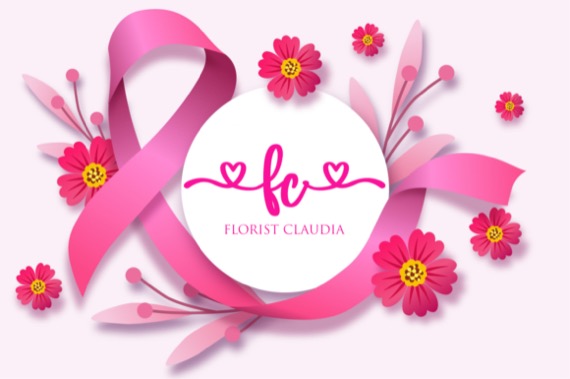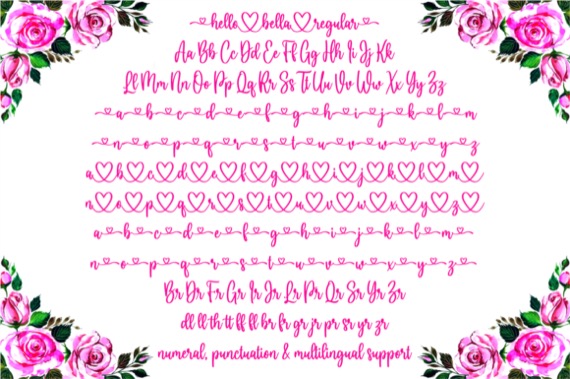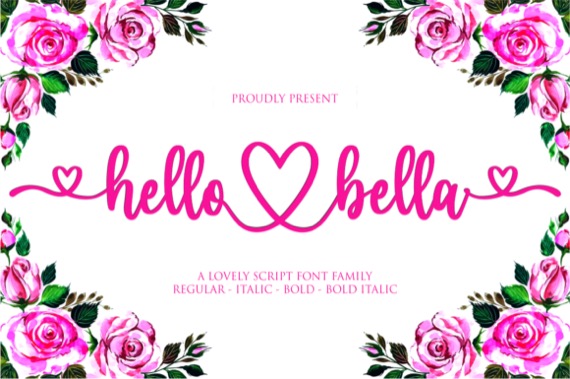
Hello Bella is a classy and beautiful handwritten script font with a romantic look that was created and released by NJStudio. Add this font to your creative ideas and notice how it will make them stand out! This font is PUA encoded which means you can access all of the glyphs and swashes with ease!
Hello Bella Calligraphy Font